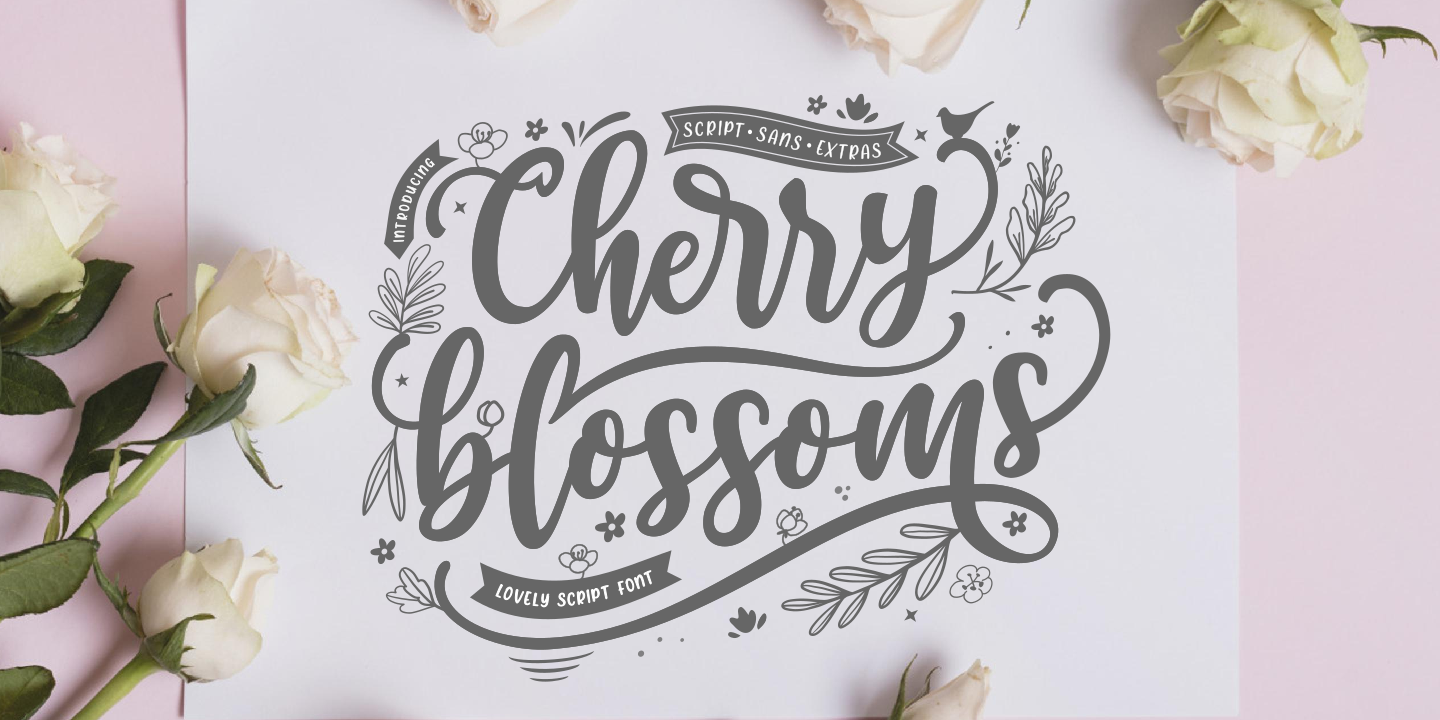
Cherry Blossoms Script Font is ideal for spring wedding invitations, Japanese-inspired branding, delicate beauty products, zen wellness centers, sakura festival promotions, tea ceremony materials, feminine fashion labels, botanical garden signage, mindfulness retreat marketing, and elegant projects that celebrate the ephemeral beauty and poetic grace of cherry blossom season with serene sophistication and natural harmony.
What makes Cherry Blossoms Script Font so exciting is its exquisite capture of sakura elegance through flowing script letterforms that embody the delicate beauty and fleeting nature of cherry blossoms. This typeface radiates the essence of Japanese aesthetic philosophy and spring renewal, featuring graceful curves and gentle flourishes that suggest falling petals and peaceful gardens while maintaining excellent readability for contemporary wellness and beauty applications celebrating natural tranquility.
Cherry Blossoms Script Font family encompasses multiple delicate variations: Regular, Bold, Light, Sakura, Delicate, Petal, Zen, and Blossom versions. Each style maintains the font's inherent cherry blossom character while offering different levels of floral elegance and spiritual serenity, providing designers with comprehensive tools for creating authentic Japanese-inspired aesthetics that resonate with audiences seeking peace and natural beauty experiences.
The serene appeal of Cherry Blossoms Script Font Free Download makes it exceptionally valuable for wellness and beauty industries promoting mindfulness and natural harmony. This font successfully communicates tranquility and delicate beauty, making it perfect for brands that want to evoke feelings of peace and connect with audiences through the timeless symbolism of cherry blossoms. Its graceful character works beautifully across both digital wellness platforms and premium beauty materials, while its distinctive sakura-inspired design creates immediate emotional connection with audiences who appreciate Japanese aesthetics and seasonal beauty.